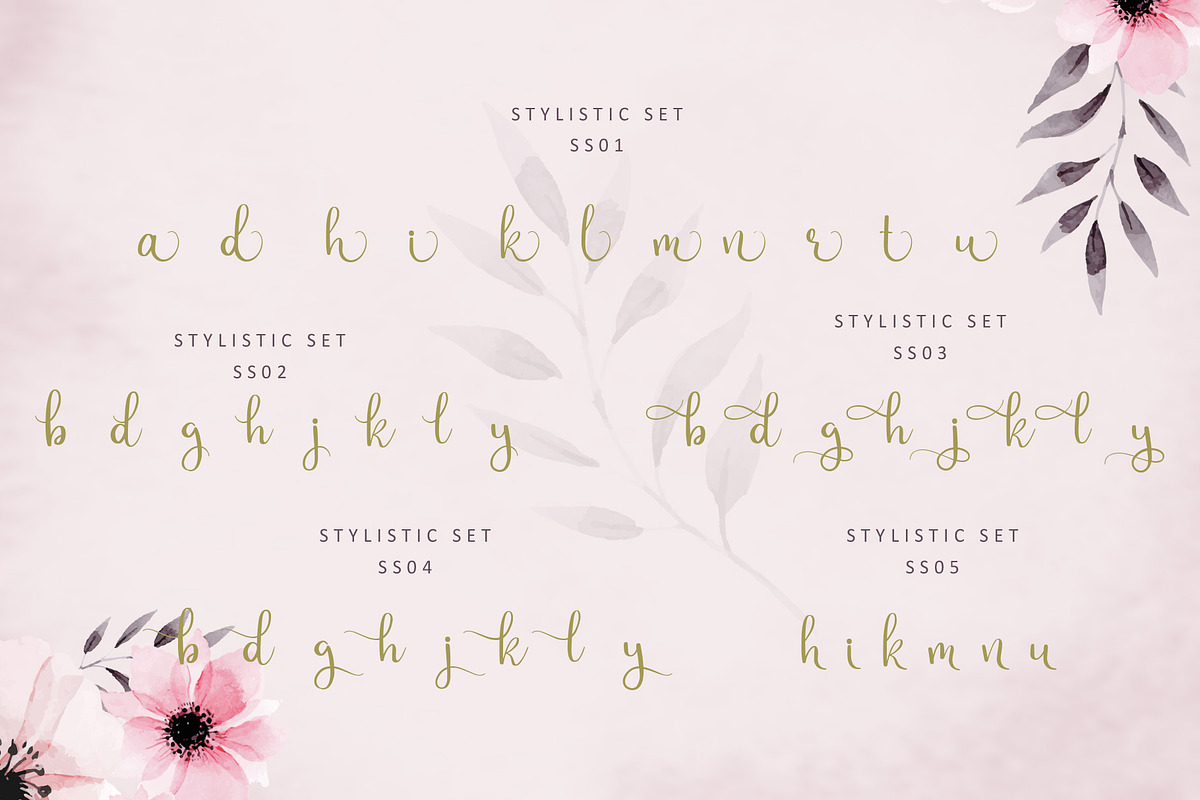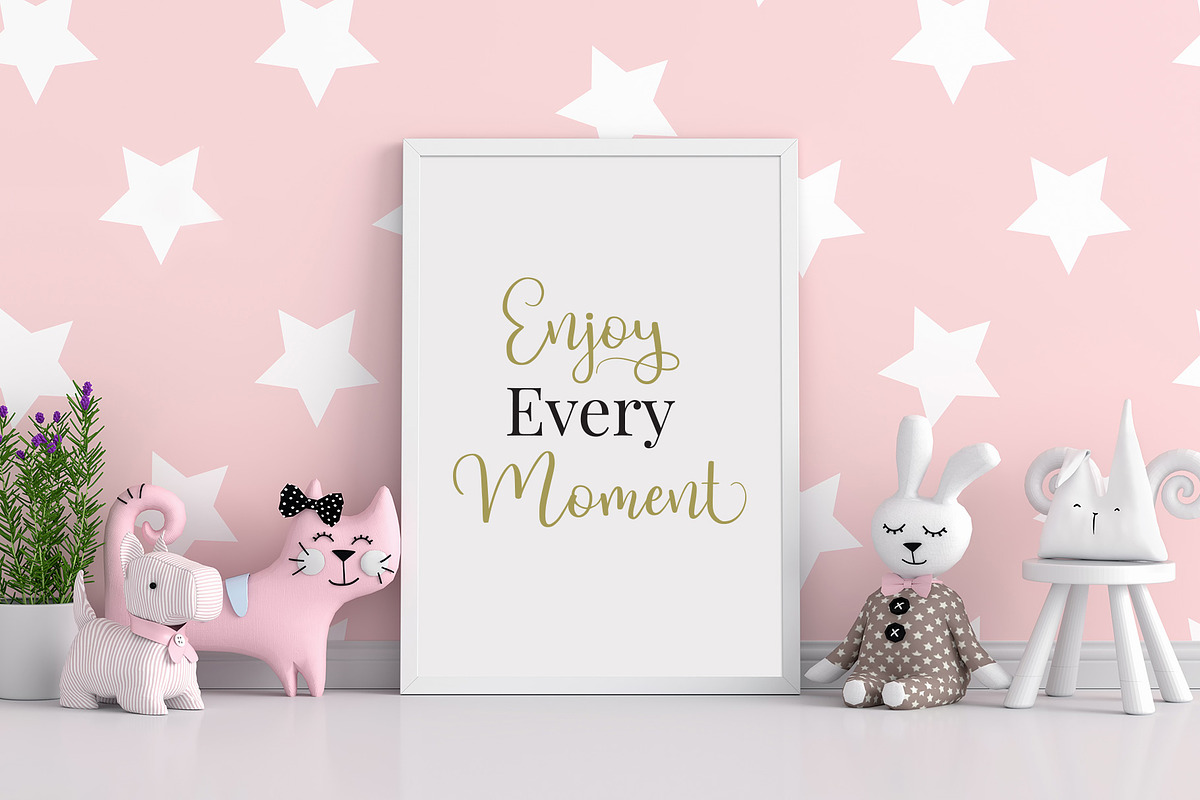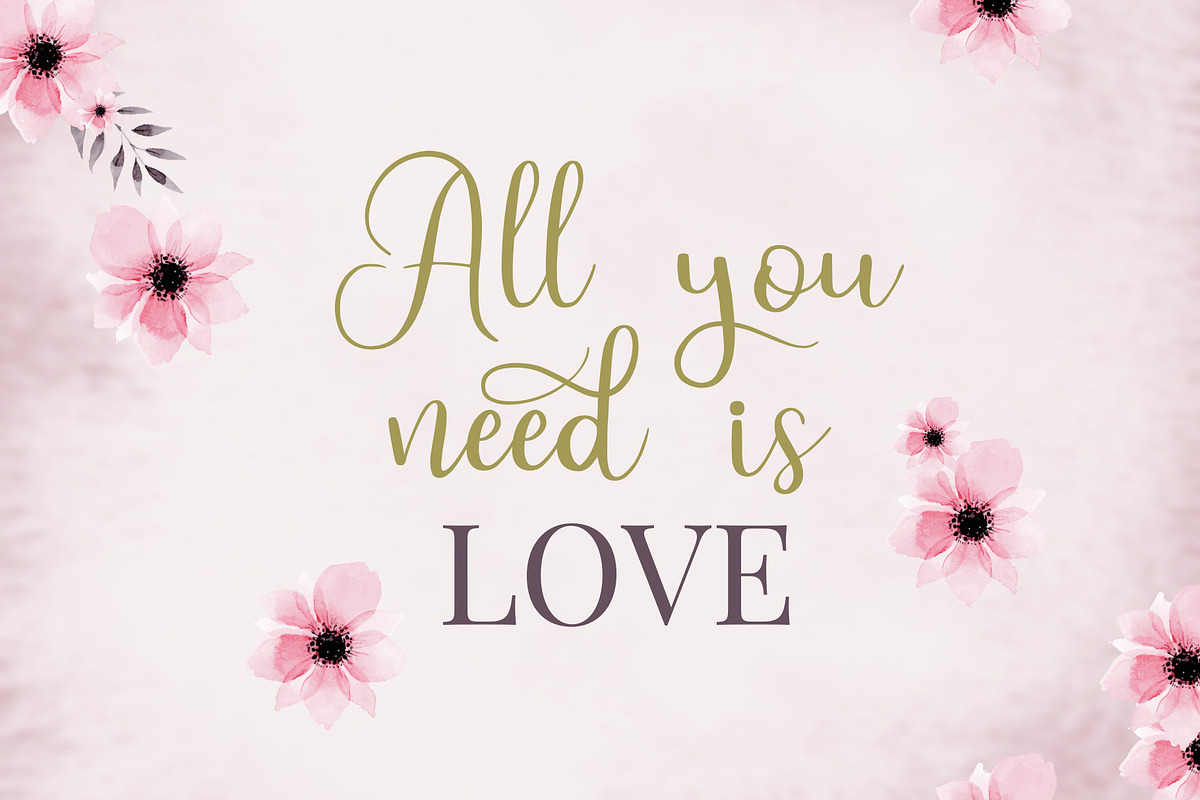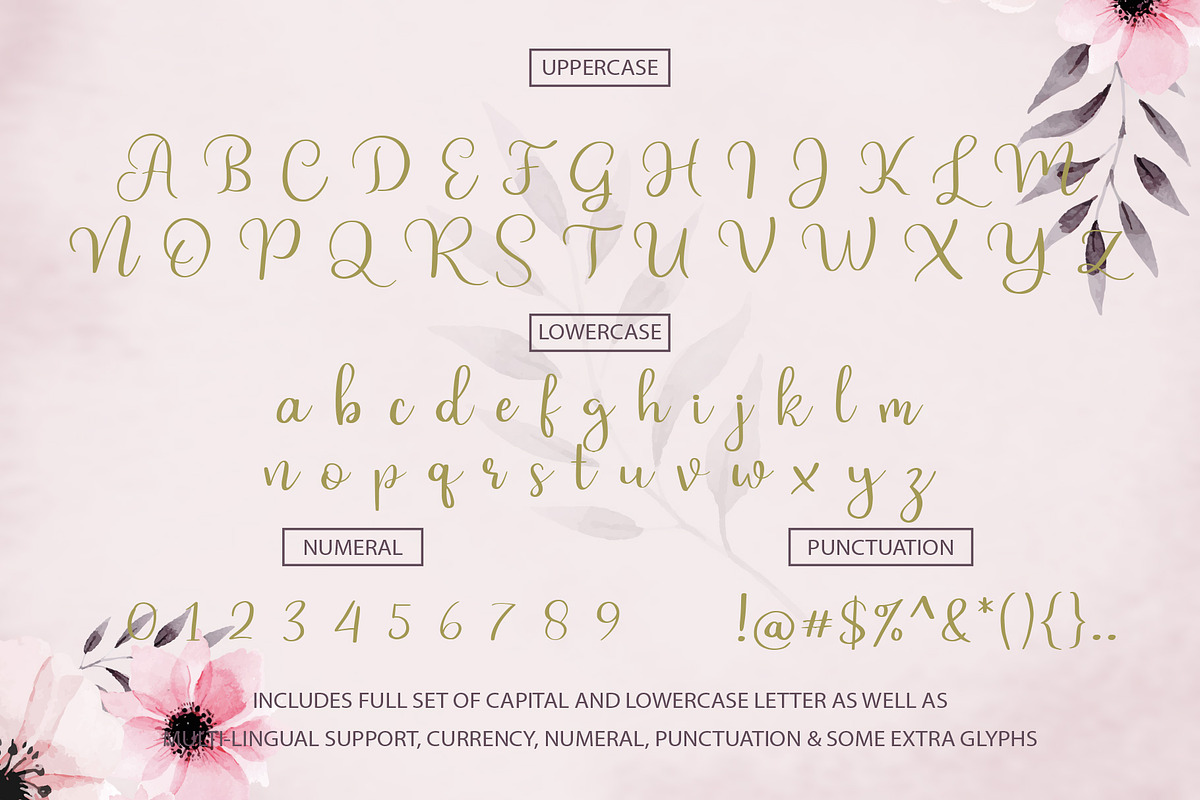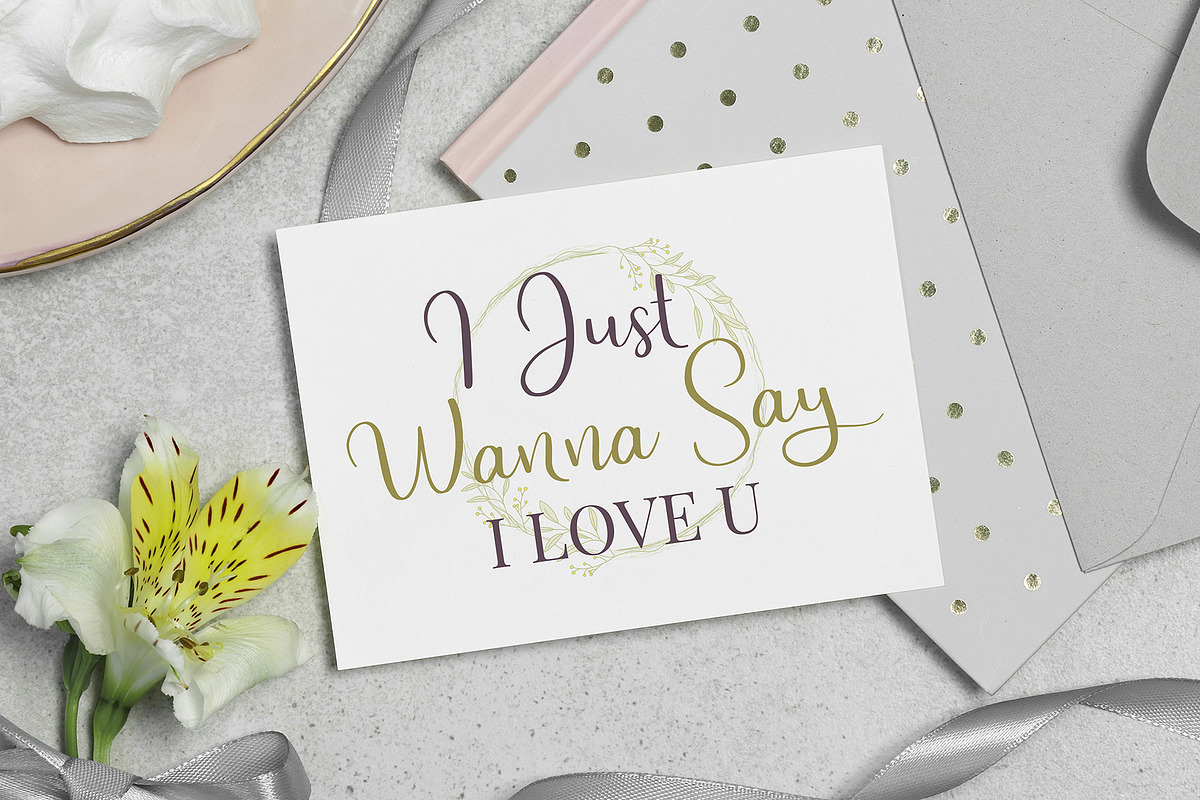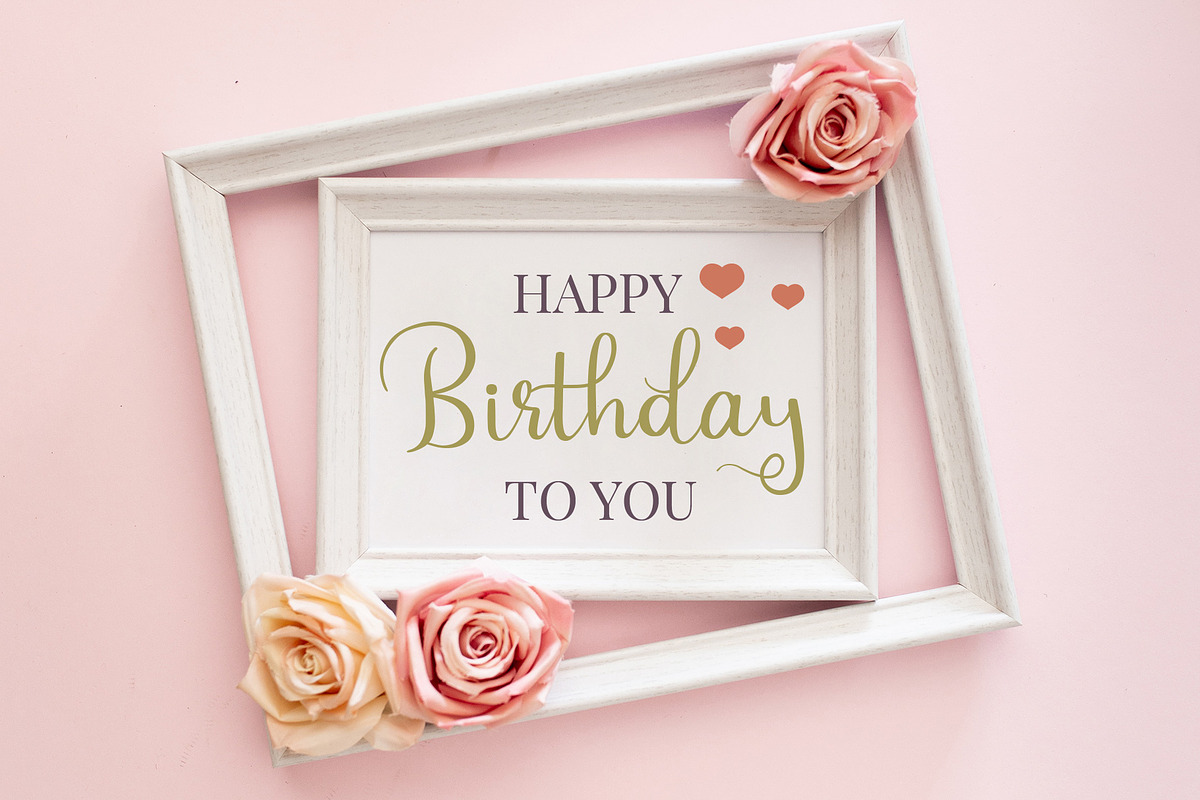
Staylist Script Font
Staylist Script Font is beauty and cute font for any awesome projects such as wedding card, watermark, quote design, social media, poster, invitation card.
Why Staylist Script Font is worth a look
Staylist Script Font by LetterJos fits naturally into Branding, posters, packaging, typography.